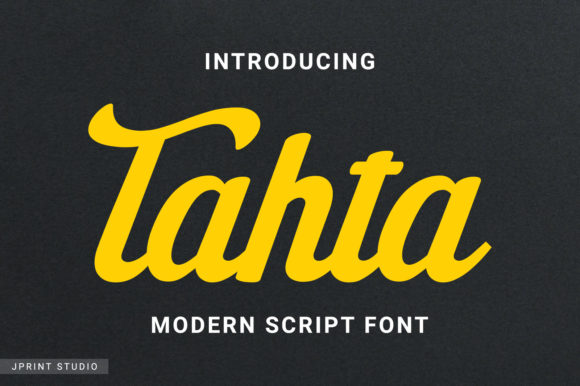
**Introducing Tahta Font: The Enchanting Script for Timeless Elegance**
Immerse yourself in the world of Tahta Font, a captivating script font that exudes vintage charm and timeless elegance. Inspired by the beauty of handwritten notes, Tahta is a carefully crafted fusion of classic calligraphy and contemporary flair, capturing the essence of heartfelt messages and treasured memories.
**Embrace the Magic of Nostalgic Charm:**
With its bold strokes and sweeping flourishes, Tahta Font evokes a sense of nostalgia, reminiscent of cherished letters and vintage postcards. Its unique character adds a touch of warmth and authenticity to your designs, transporting you back to a simpler time when words were written with care and artistry.
**Unleash Your Creativity with Endless Possibilities:**
Tahta Font's versatility knows no bounds. Whether you're creating wedding invitations that ooze romance, heartfelt greeting cards that convey your deepest emotions, or eye-catching logos that exude sophistication, Tahta is your perfect companion. Its adaptability extends from branding and advertising to social media posts, blog headers, and even stunning posters that command attention.
**Experience the Beauty of Handcrafted Finesse:**
Every letter in Tahta Font is a testament to the art of hand-lettering. The subtle variations in line thickness, the graceful curves, and the delicate flourishes reflect the meticulous attention to detail that went into its creation. This font is not merely a collection of characters; it's a reflection of artistry and passion.
**Make a Statement with Unforgettable Design:**
With Tahta Font, you have the power to craft designs that resonate with your audience, leaving an indelible mark on their minds. Its strong, confident strokes command attention, while its dynamic character adds a touch of playfulness and intrigue. Whether you're creating marketing materials, personal projects, or simply expressing your creativity, Tahta will elevate your designs to new heights.
**Indulge in the Beauty of Simplicity:**
In a world saturated with visual noise, Tahta Font offers a refreshing respite. Its clean lines and uncluttered aesthetic allow your words to take center stage, ensuring that your message is conveyed with clarity and impact. Tahta Font is the perfect choice for those who appreciate the beauty of simplicity and understated elegance.
**Craft Designs that Tell a Story:**
With Tahta Font, you have the power to transcend the boundaries of ordinary typography and create designs that tell a story. Its expressive nature lends itself beautifully to projects that evoke emotion and convey a deeper message. Whether you're designing a book cover that captures the essence of a timeless tale or a poster that stirs the soul, Tahta will be your trusted ally in crafting designs that resonate.